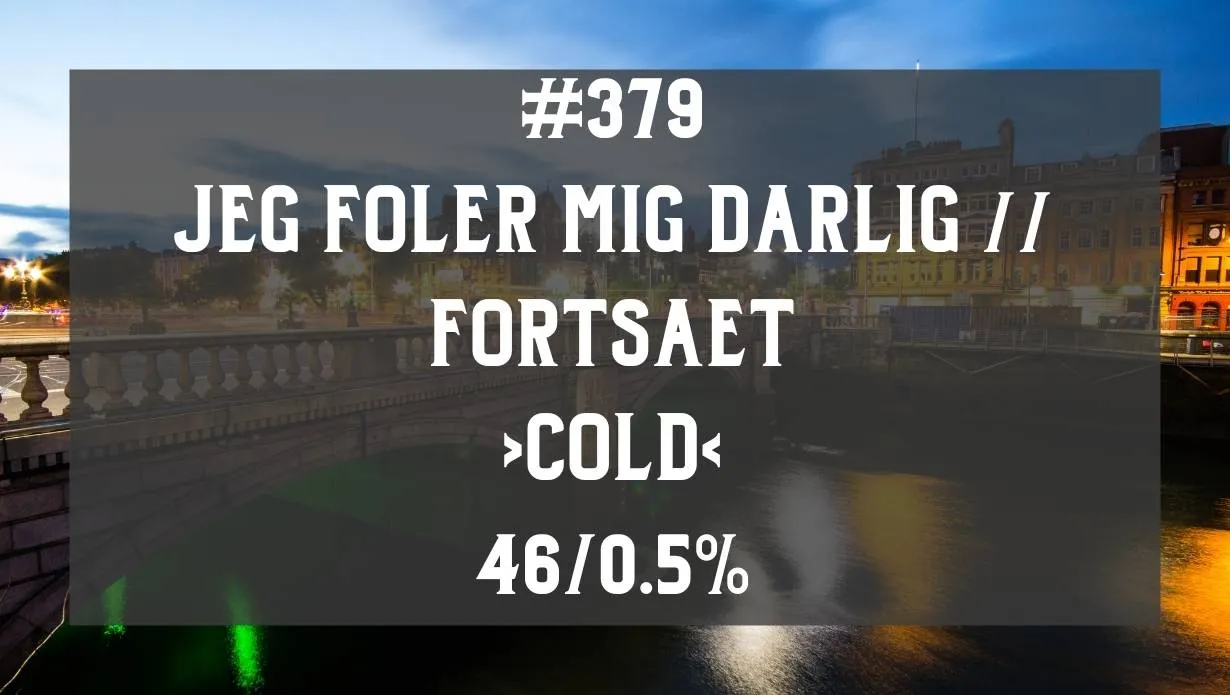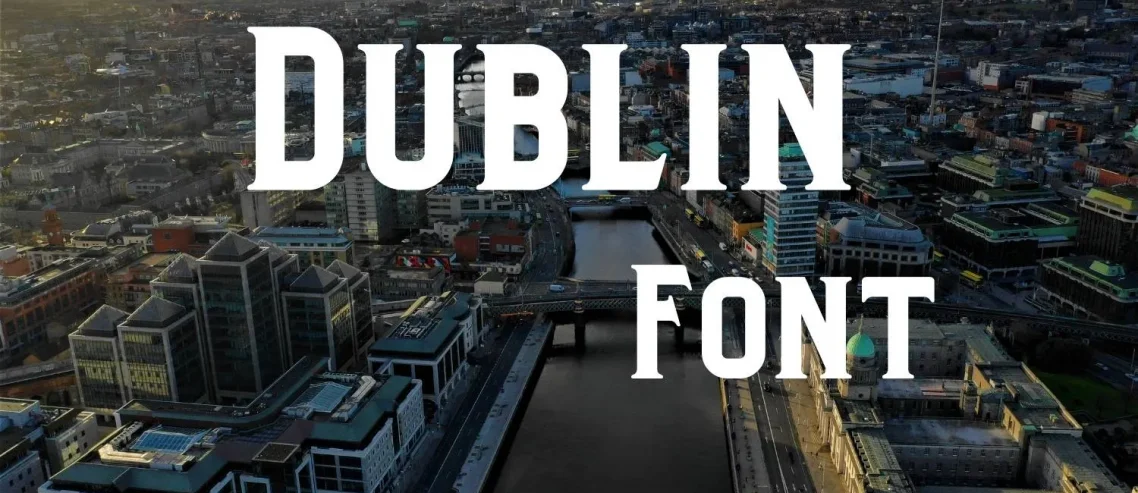
Dublin Font is a typeface designed by Canadian typedesigner Kevin Wilson in 1993. It is a fancy font that has strong geometric shapes and is an all-caps font. This font is available in regular, italic, and bold weights.